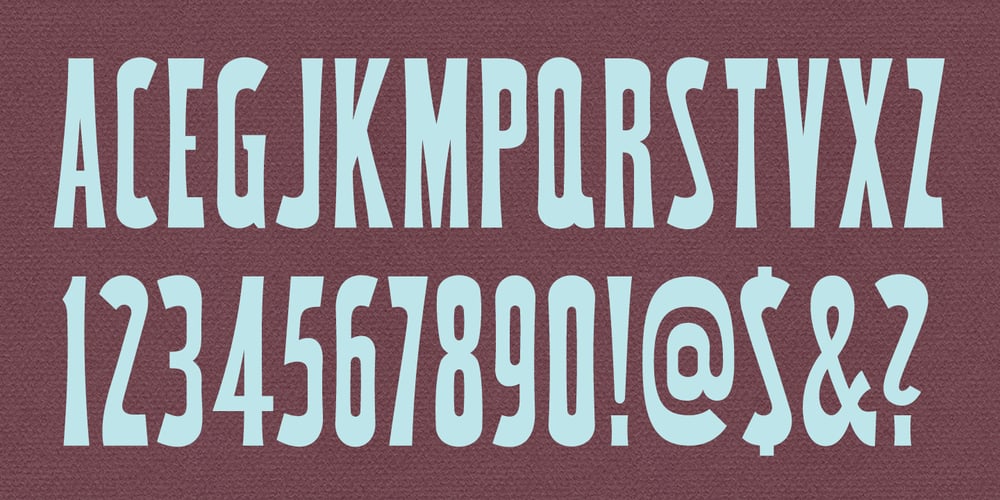
MPI No. 510 Font Family was designed by published by mpressInteractive. MPI No. 510 contains 1 styles and family package options. No. 510 is a friendly, slim gothic face. Strokes have a gentle inward curve at the median with the tops and bottoms of the letters slightly wider and thicker. The design was first introduced by William H. Page & Company around 1887.